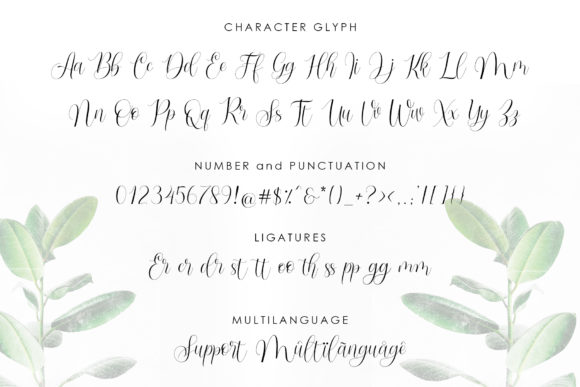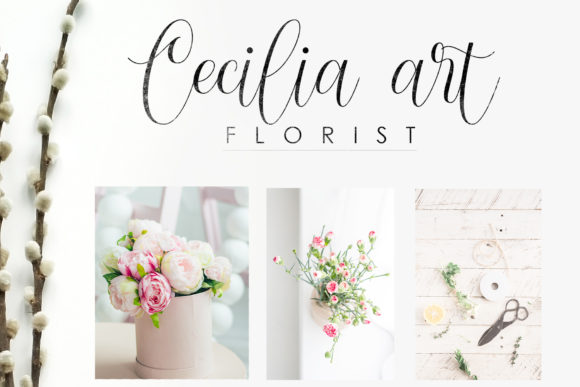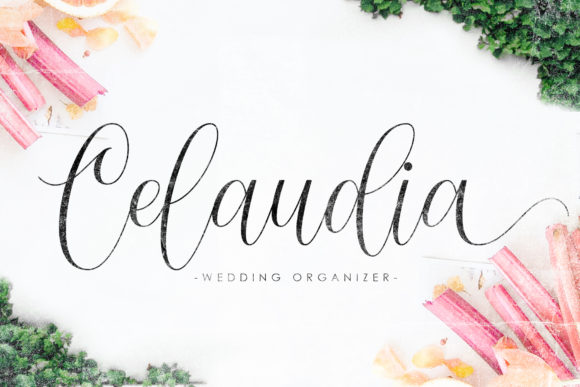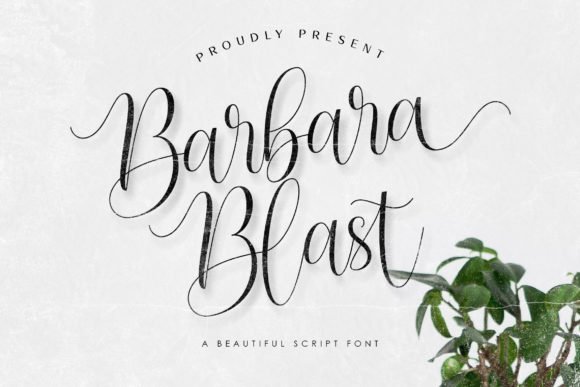
Introduction to Barbara Blast Font
Barbara Blast is a stunning and bold handwritten font with a unique twist.
Fall in love with its bold swashes .
Barbara Blast Font offers exceptional quality and versatility, making it a valuable addition to your design toolkit. Whether you’re creating for personal projects or commercial use, Barbara Blast Font delivers professional results.